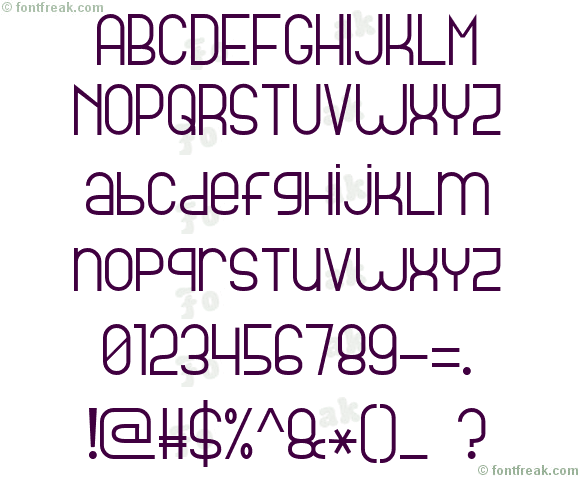
Bright Line 7
About Bright Line 7
Bright Line 7, created by Style-7, is a modern sans-serif font that embodies simplicity and elegance. Its clean lines and balanced proportions make it a versatile choice for various design projects. The font features a medium stroke weight with minimal contrast, contributing to its legibility and contemporary feel. The spacing between characters is well-considered, allowing for easy readability while maintaining a stylish appearance. Bright Line 7 is characterized by its straightforward design, making it suitable for both digital and print applications.
This font is perfect for a range of use cases. It works exceptionally well for branding materials, where clarity and modernity are essential. Graphic designers will find it ideal for creating eye-catching logos that require a sleek and professional touch. Additionally, Bright Line 7 can elevate the aesthetics of restaurant menus, giving them a fresh and inviting look. For small business owners, this font is an excellent choice for promotional flyers and social media graphics, ensuring that messages are communicated effectively and attractively. Furthermore, it can be utilized in event invitations, providing a contemporary yet elegant feel that complements a variety of themes.
What sets Bright Line 7 apart is its ability to bridge the gap between simplicity and sophistication. Its understated elegance ensures that it never overshadows the content it accompanies, making it an invaluable asset for any design toolkit. Whether for professional branding or personal projects, this font offers a fresh perspective that resonates with contemporary design sensibilities.